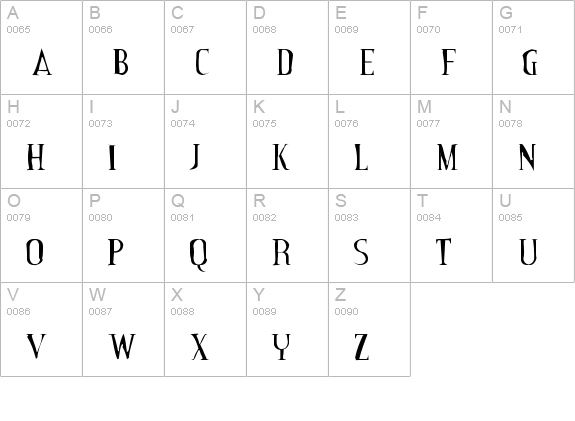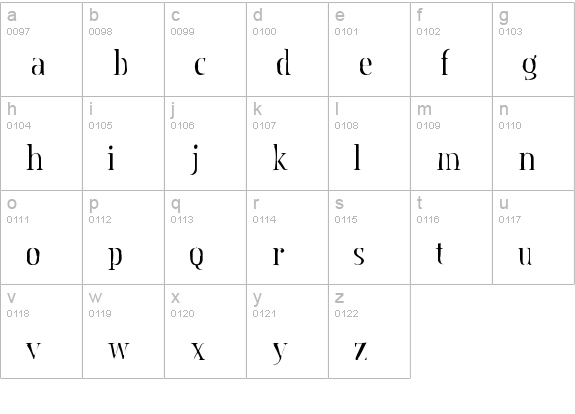
Credit Valley Gaunt is a captivating and elegant font that exudes sophistication and charm. Its sleek and slender letterforms convey a sense of modernity while still retaining a timeless appeal. The delicate curves and sharp angles of this font create a striking visual impact, making it perfect for various design projects, from branding to editorial work. What sets Credit Valley Gaunt apart is not just its stunning aesthetics, but also the fact that it is available for free download at FontsMarket.com. This means that you can add this exquisite font to your collection without any cost, making it an invaluable resource for designers, creatives, and enthusiasts alike. Whether you're looking to elevate your branding, create eye-catching graphics, or simply add a touch of sophistication to your projects, Credit Valley Gaunt is a versatile and stylish choice that is sure to impress. Download it for free today and unleash your creativity with this exceptional font.